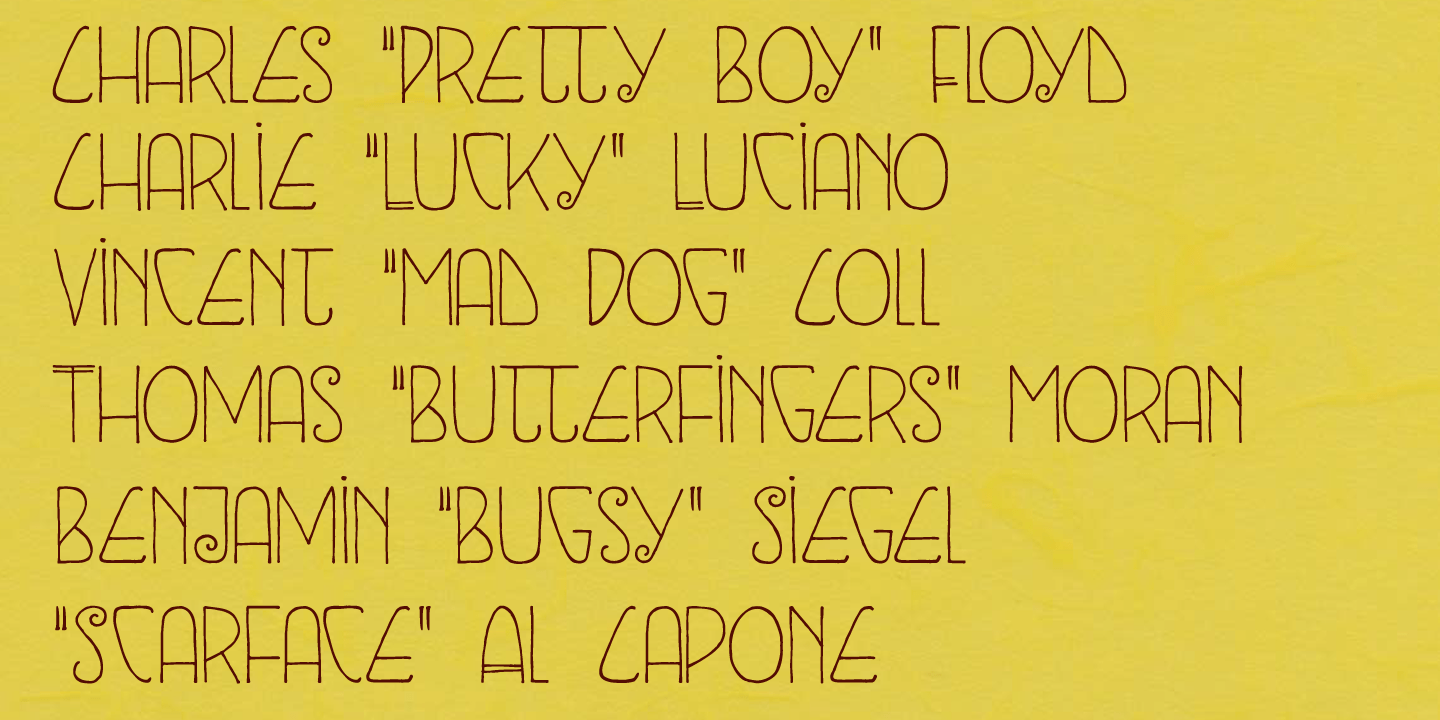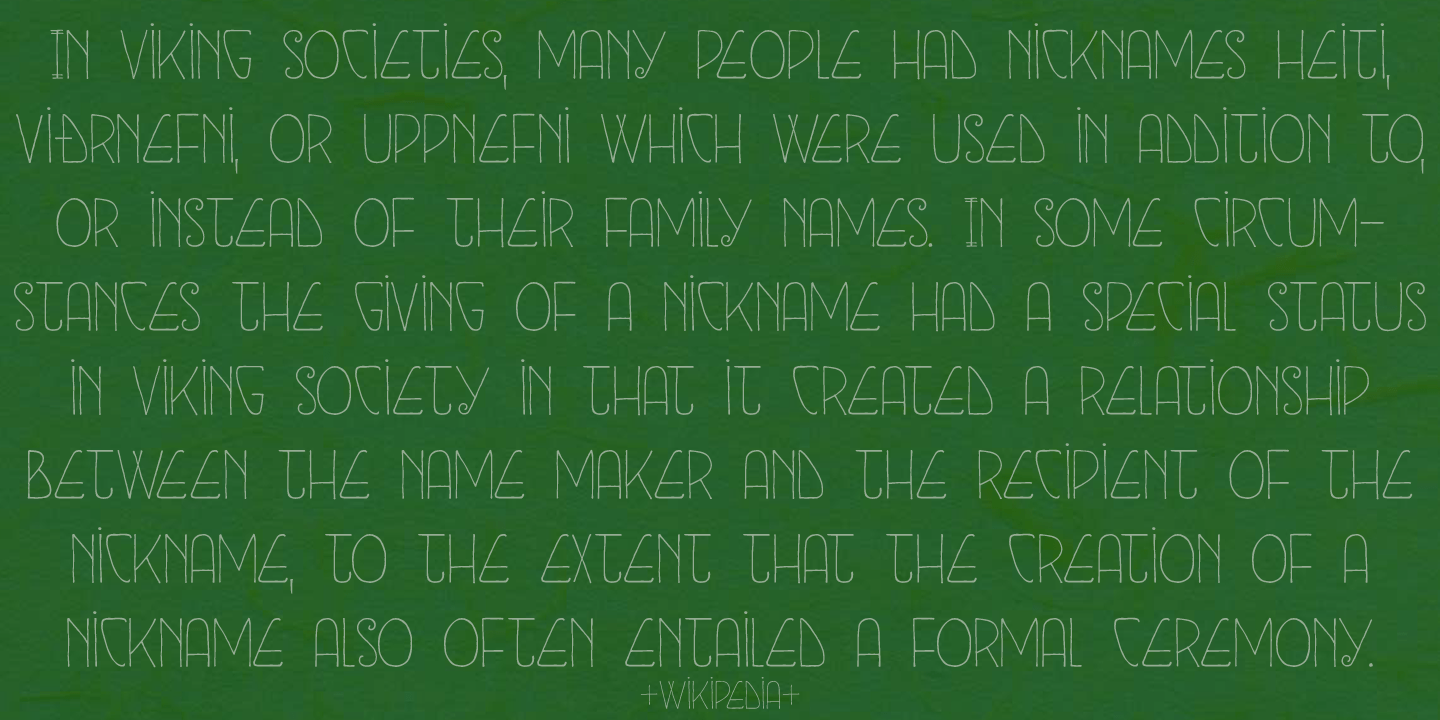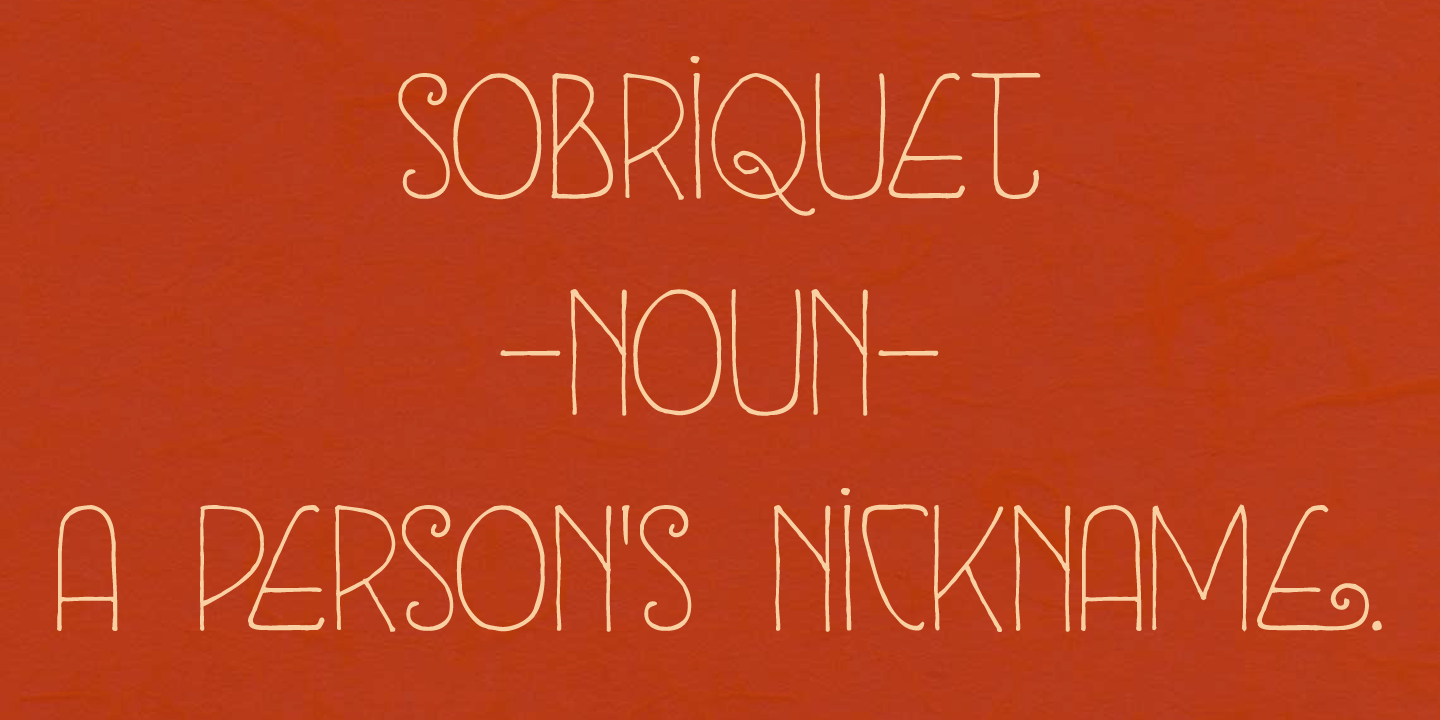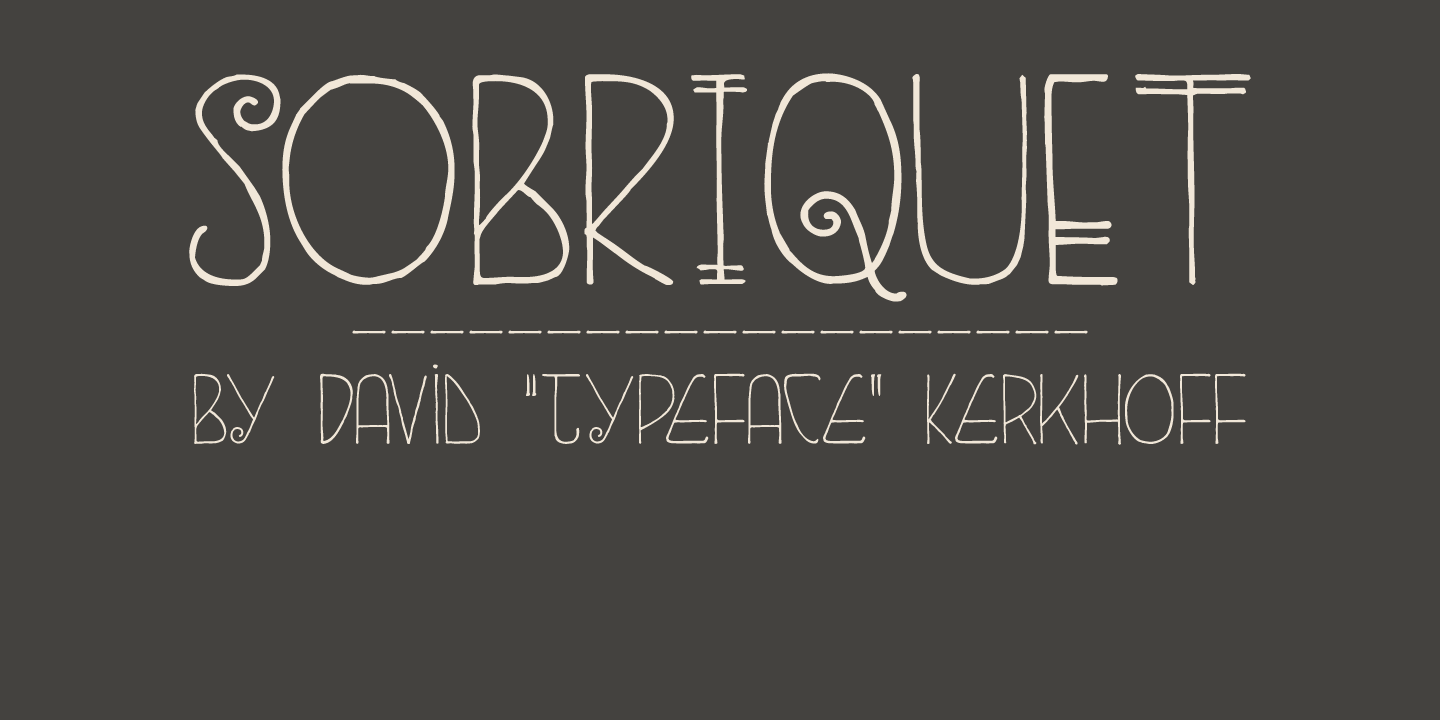
Sobriquet
Sobriquet means ?nickname?. The font is a narrow, handmade typeface, in an art-deco-ish style. It comes with a bunch of ligatures, distinct upper and lower case letters and extensive language support.